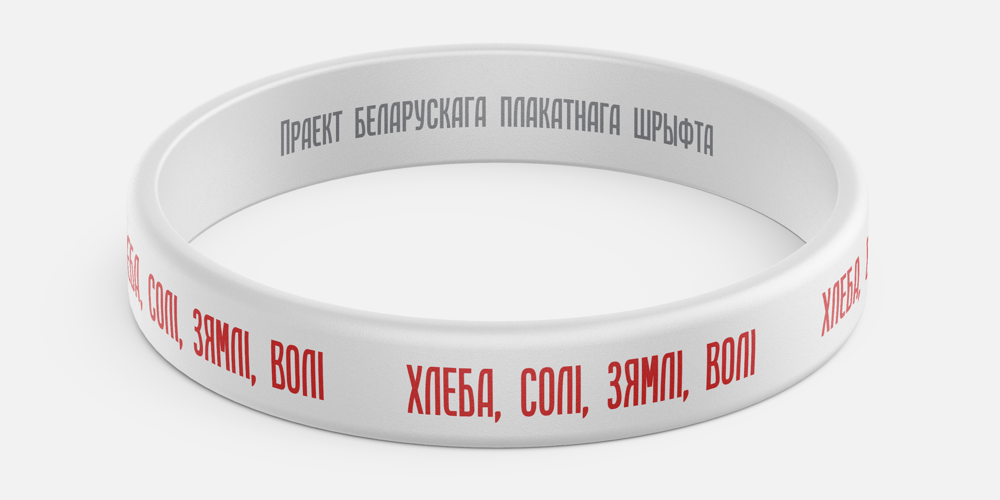
Hleba Soli Ziamli Voli Font Family was designed by Aliaksei Koval and published by Koval TF. Hleba Soli Ziamli Voli contains 10 styles and family package options. Hleba Soli Ziamli Voli typeface is a graphic discovery on title type that combines traditional poster shapes with Humanist notes from Renaissance. Hleba Soli Ziamli Voli is named after Belarus poem by Yanka Kupala and inherits some original glyph designs from Renaissance printings by Francisk Skoryna.Hleba Soli Ziamli Voli due to wide variety of weights is great for titles and posters. Cyrillic and Latin support makes the type sutable for multilingual communications.